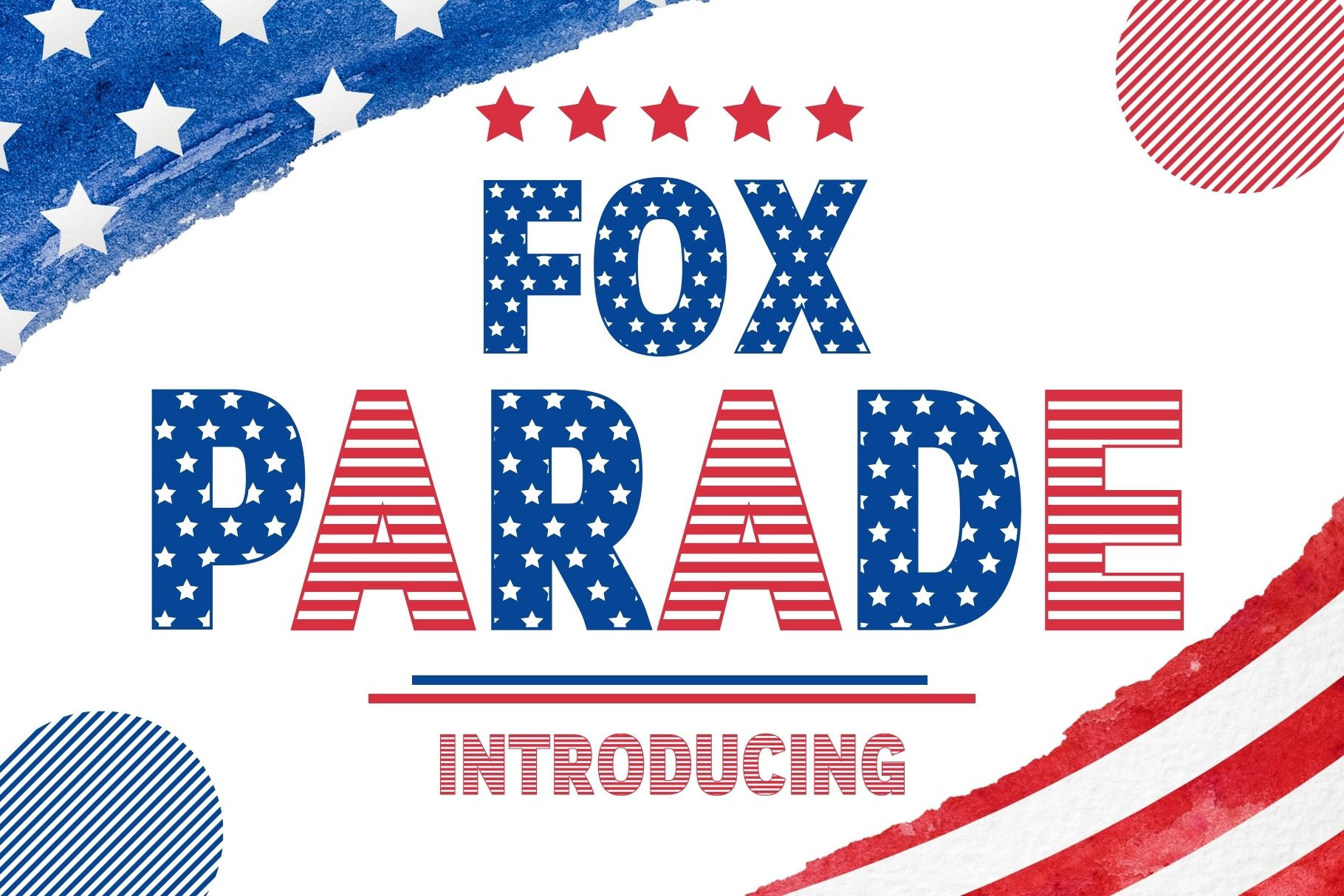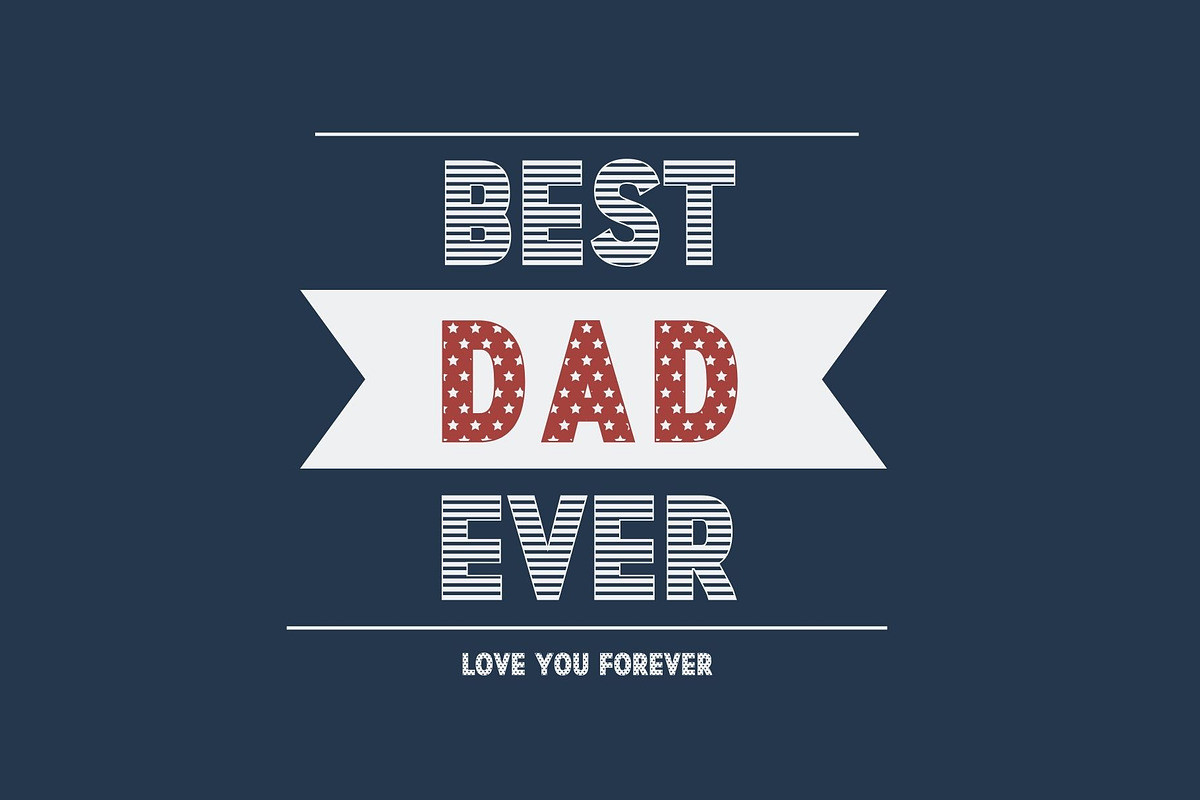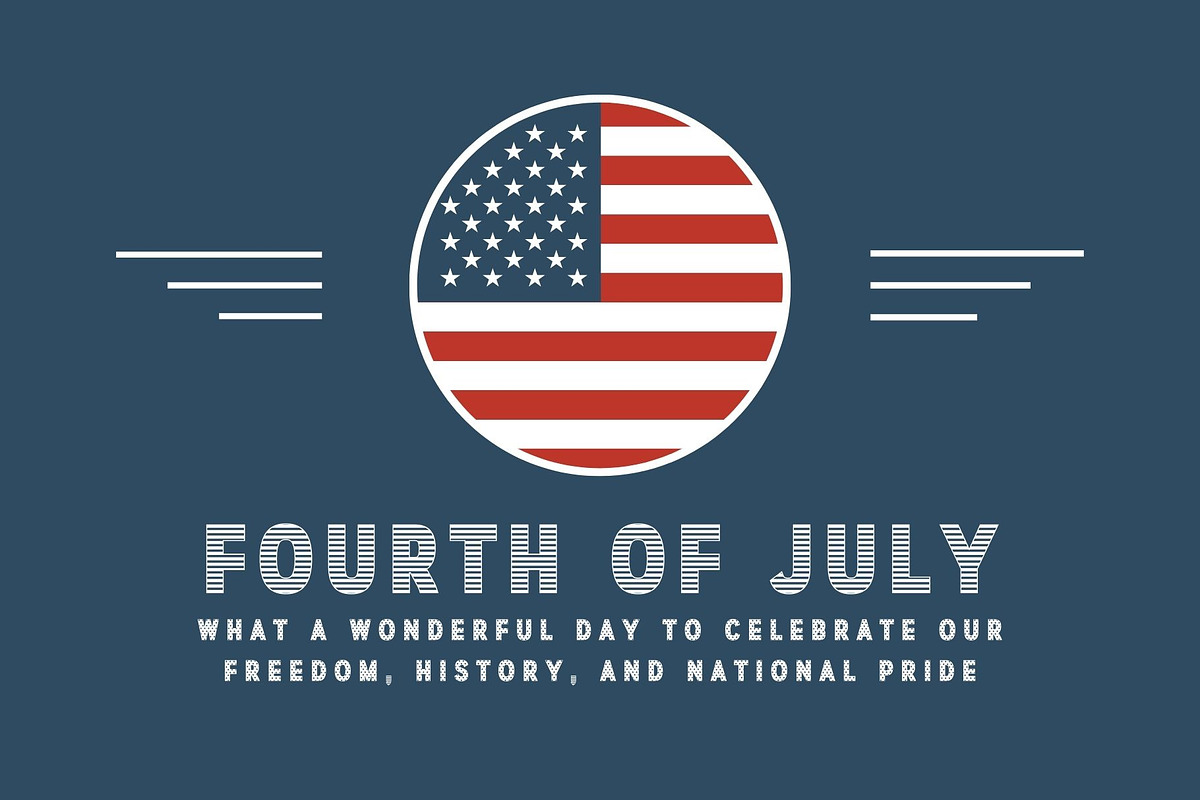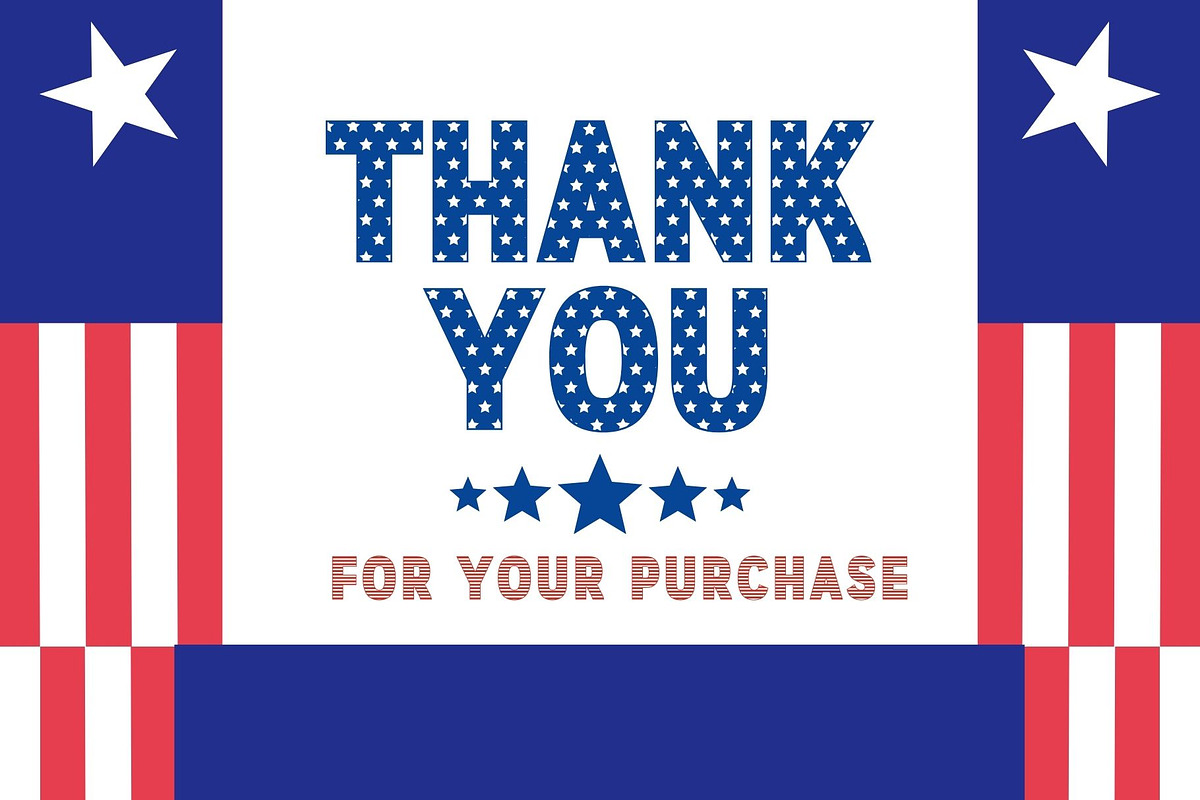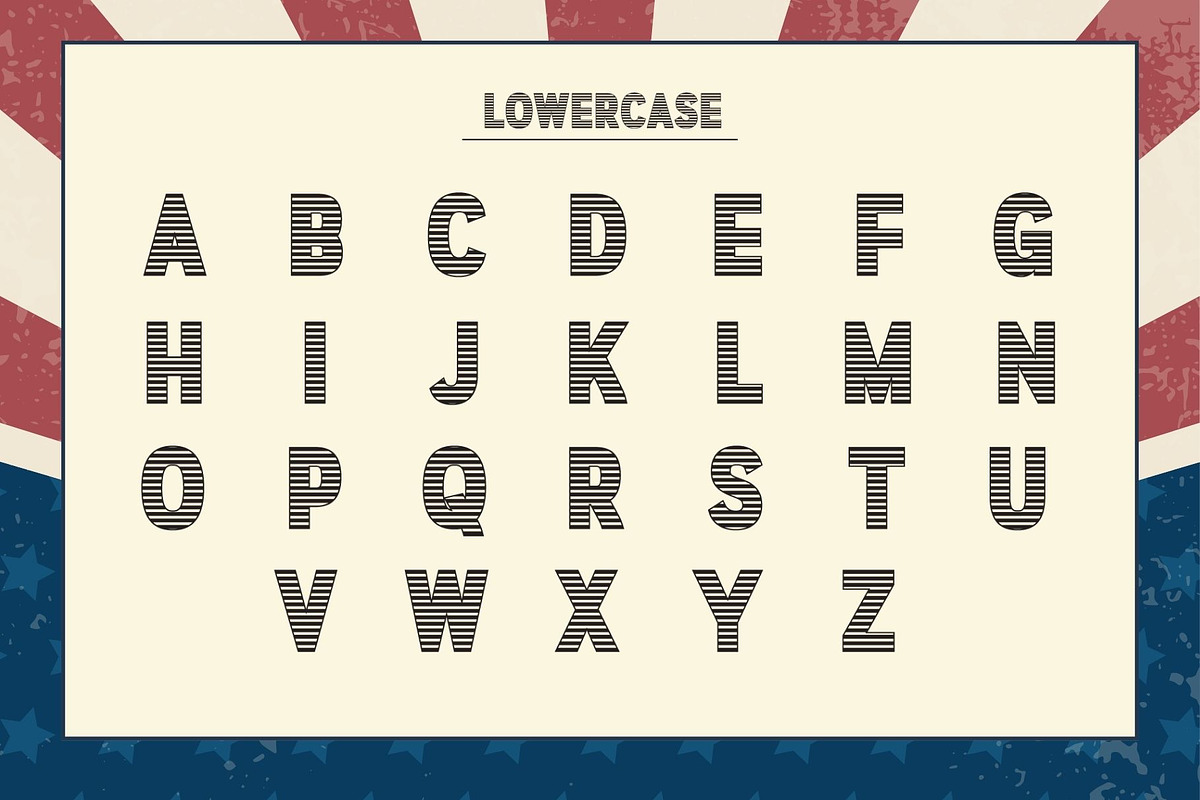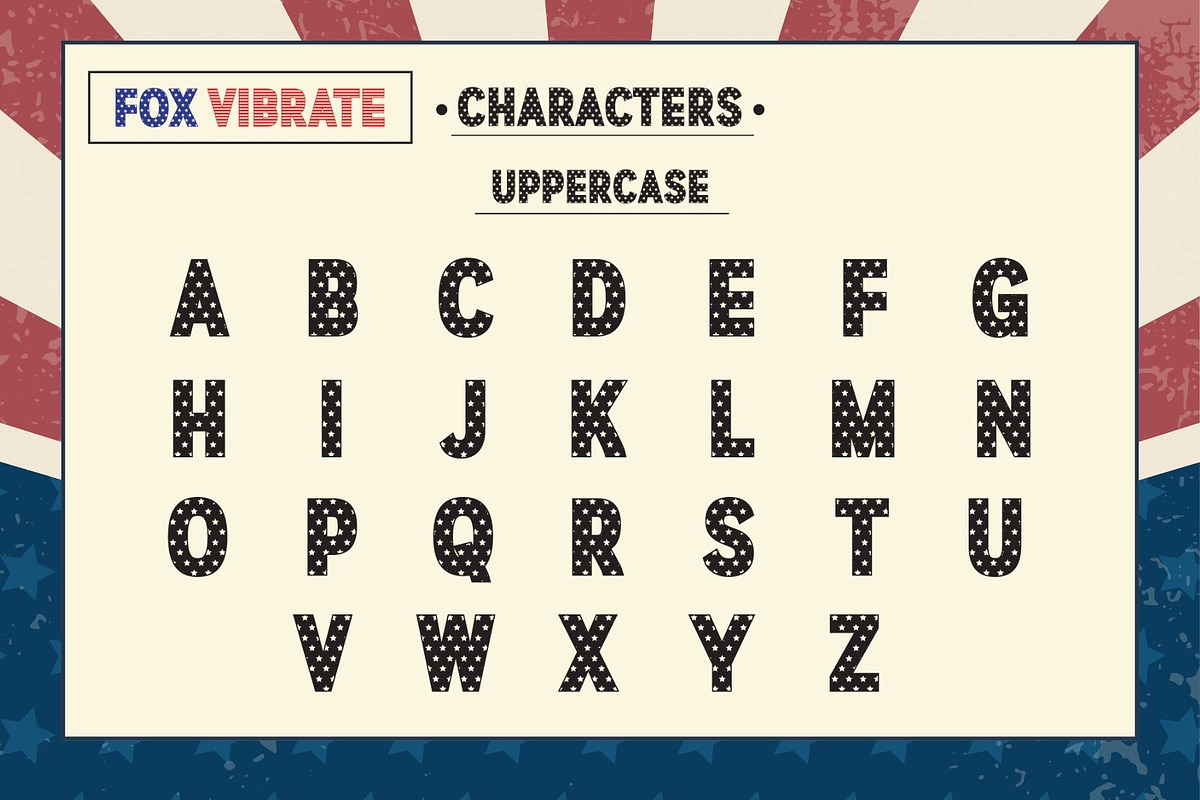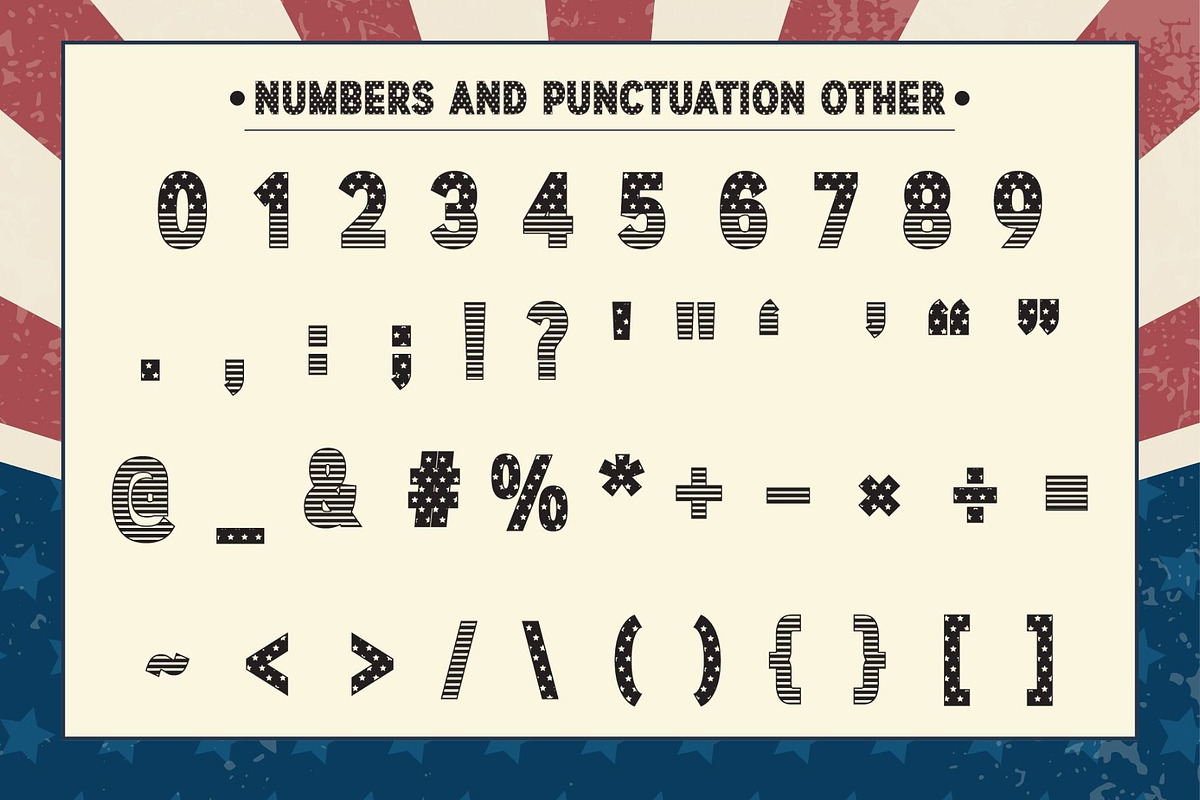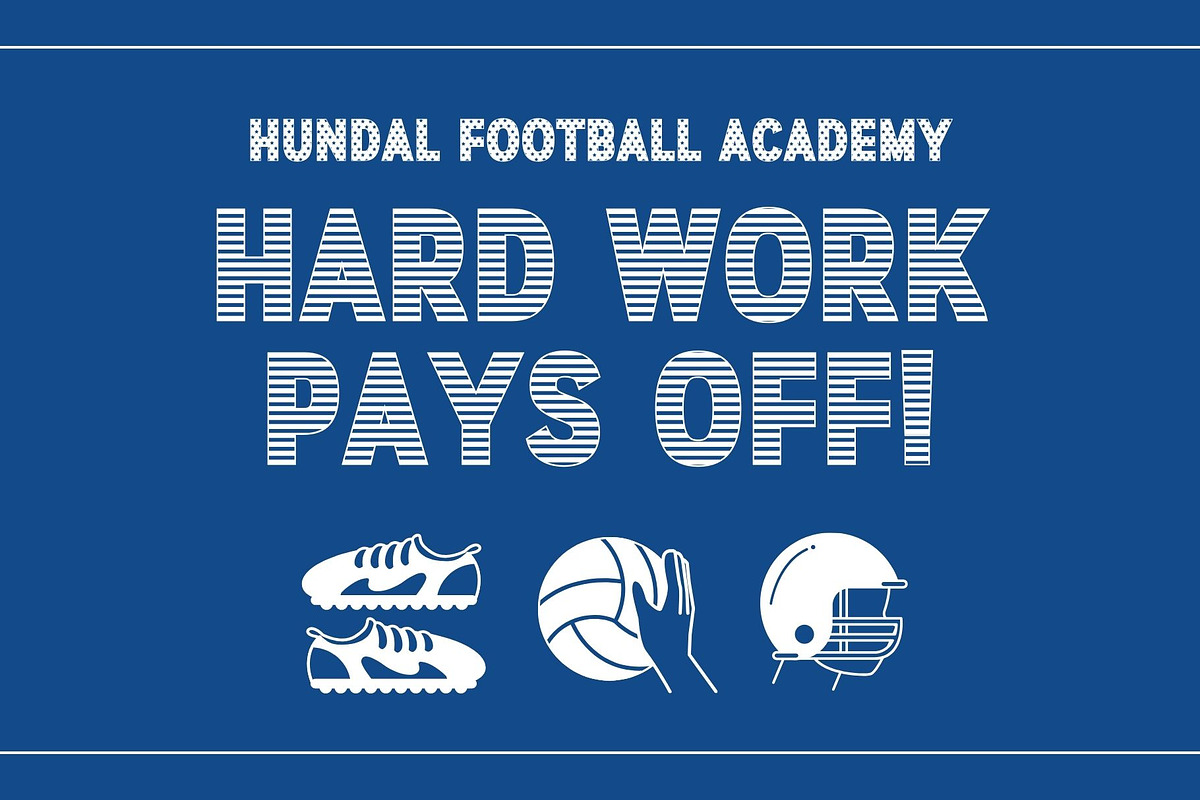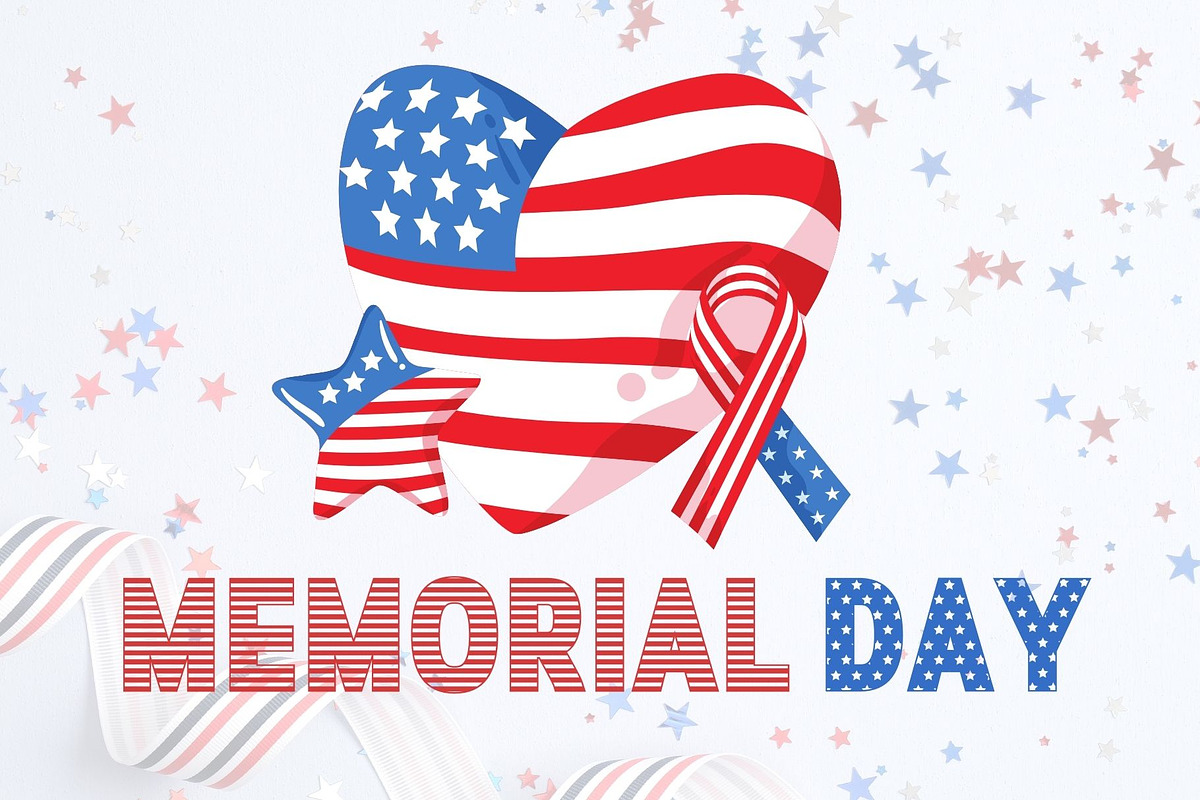
Fox Parade Font
Fox Parade is a font that has a stars and stripes pattern in the letters. This decorative font is perfect for projects that celebrate American culture, history, or events such as Independence Day, Veterans Day, or Memorial Day. It can be used to create impactful headlines, banners, or signage, infusing a sense of national pride and identity into any design.